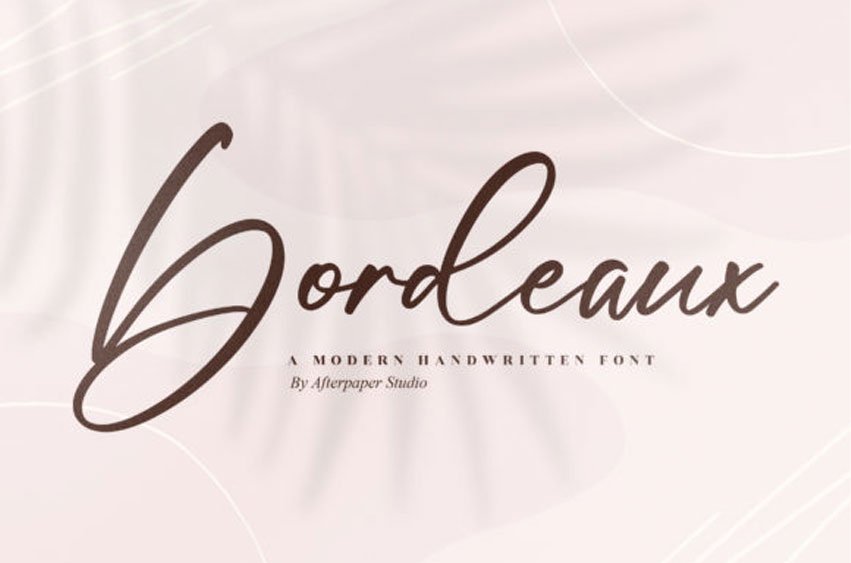
Bordeaux Font is a beautiful and light handwritten font with a unique feel and a stunning impact.
It will add a neat spark to any design project that you wish to create!